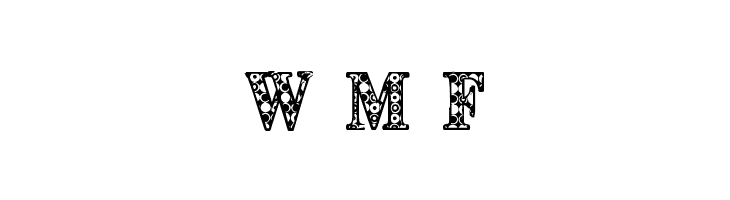
( Fonts by Steve Cloutier - www.cloutierfontes.ca )
An ornate and decorative font with intricate patterns within each character.
( Fonts by Alphabet & Type: Typography & Graphic - Paolo Vannucci - www.alphabetype.it )
A classic serif font with elegant, elongated letterforms and pronounced serifs.
( Fonts by Alphabet & Type: Typography & Graphic - Paolo Vannucci - www.alphabetype.it )
A bold, futuristic font with geometric, outlined characters.
( Fonts by Alphabet & Type: Typography & Graphic - Paolo Vannucci - www.alphabetype.it )
A bold, slanted font with sharp angles and a futuristic style.
( Fonts by Alphabet & Type: Typography & Graphic - Paolo Vannucci - www.alphabetype.it )
A dynamic, angular font with a futuristic and tech-inspired design.
( Fonts by Alphabet & Type: Typography & Graphic - Paolo Vannucci - www.alphabetype.it )
A bold, distressed font with a halftone texture and urban flair.
( Fonts by www.seansart.net )
An ornate and decorative font with high contrast and intricate flourishes.
( Fonts by www.seansart.net )
A fluid and expressive calligraphic font inspired by traditional Japanese brushwork.
A playful, hand-drawn font with irregular, whimsical characters.